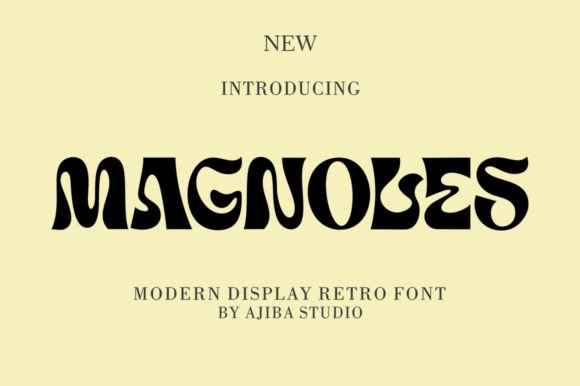
Introducing Magnoles Font - A Timeless Masterpiece for Your Creative Endeavors
Embark on a typographic odyssey with Magnoles Font, a display font that exudes a captivating retro aesthetic, effortlessly transforming your creative projects into captivating masterpieces. Magnoles is not just a font; it's a portal to a bygone era, a fusion of classic elegance and contemporary flair. Step into a world where creativity knows no bounds, where your designs transcend the ordinary and embrace the extraordinary.
Unleash Your Imagination with Magnoles' Unique Charm
Magnoles Font is a symphony of distinctive characters, each meticulously crafted to stand out from the mundane. Its intricate details and playful curves evoke a sense of nostalgia, adding a touch of timeless elegance to your designs. Whether you're crafting logos, posters, branding materials, or captivating social media graphics, Magnoles will elevate your creations to new heights.
Dive into a Sea of Creative Possibilities
Magnoles Font's versatility is boundless. Its retro aesthetic seamlessly blends with modern design trends, making it the perfect choice for a wide range of creative projects. From eye-catching logos that leave a lasting impression to captivating posters that demand attention, Magnoles adapts effortlessly to your vision. Its distinct charm brings a touch of sophistication to branding materials, while its playful nature adds a spark to social media graphics.
Express Your Distinct Style with Magnoles
With Magnoles Font as your creative companion, you can confidently express your unique style. Its retro-inspired design adds a touch of nostalgia to your creations, evoking a sense of familiarity and comfort. At the same time, its contemporary flair ensures that your designs remain relevant and impactful in the modern digital landscape. Magnoles empowers you to create designs that truly reflect your individuality, leaving an indelible mark on your audience.